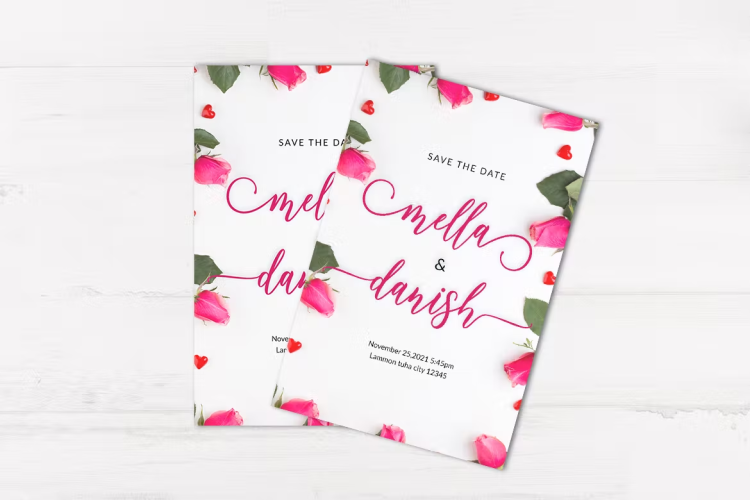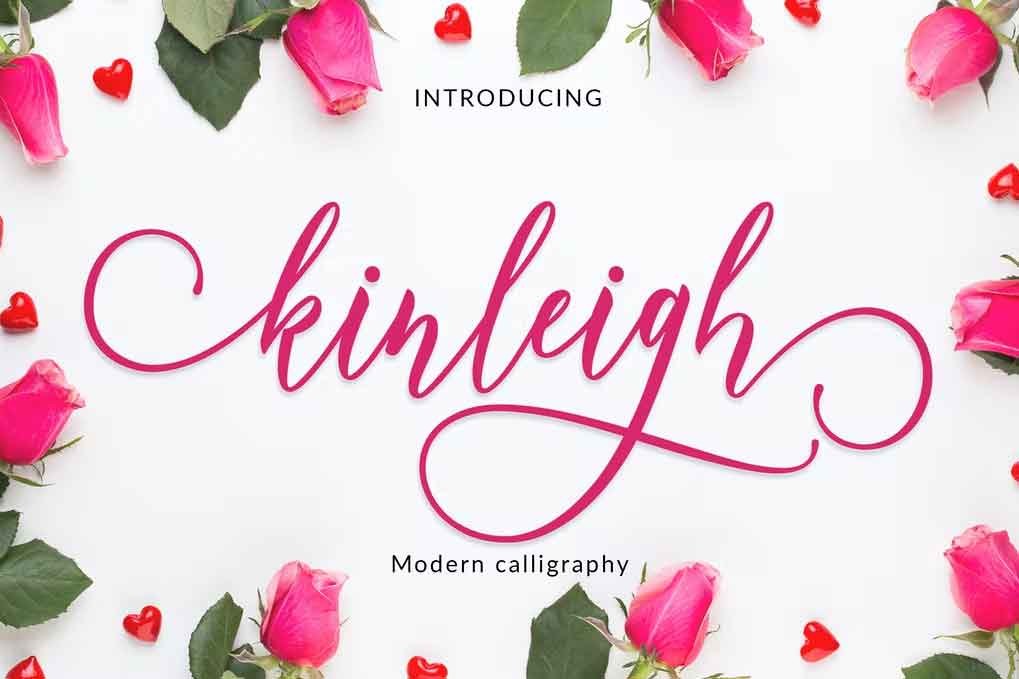
Kinleigh Font
Where Kinleigh Font works best
Kinleigh Font brings a personal, handwritten warmth to invitations, menus and place cards.
Craft brands — coffee, cosmetics, bakery — use scripts like Kinleigh Font for signature-style logos and labels.
Pair Kinleigh Font with a plain sans for quotes, stories and Pinterest pins that feel handmade.
What is Kinleigh Font good for?
Kinleigh Font is a Script And Handwritten typeface tagged Handwritten, Professional, Script, Script And Handwritten. It works well for headlines, logos, posters, social media graphics and branding projects that need a distinctive script and handwritten look.